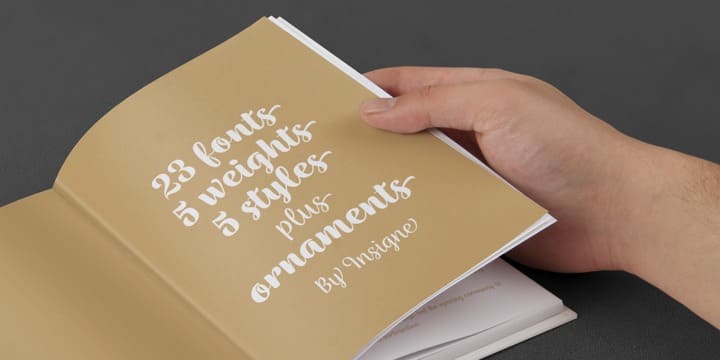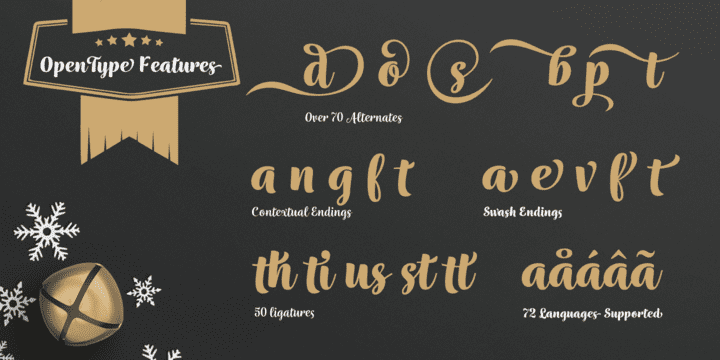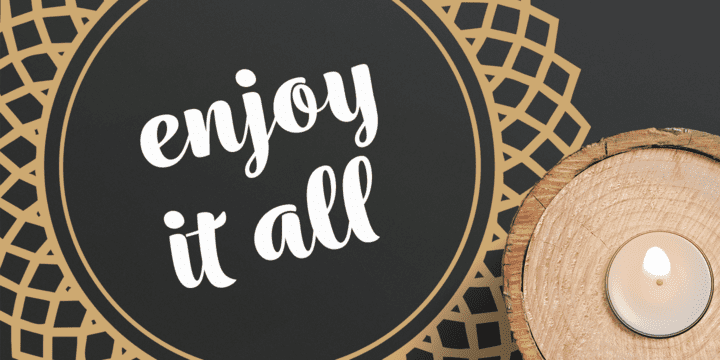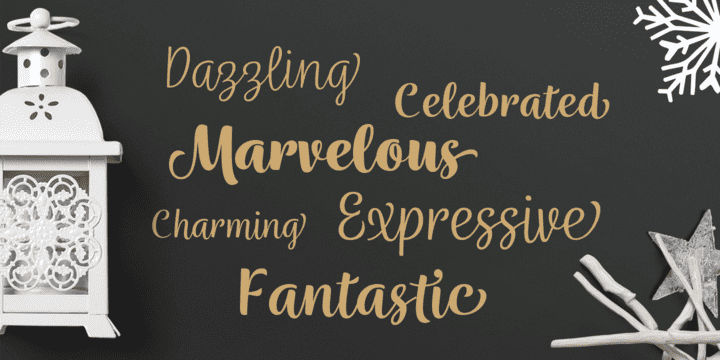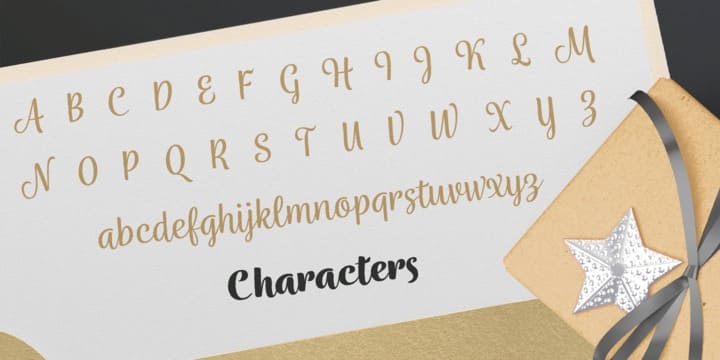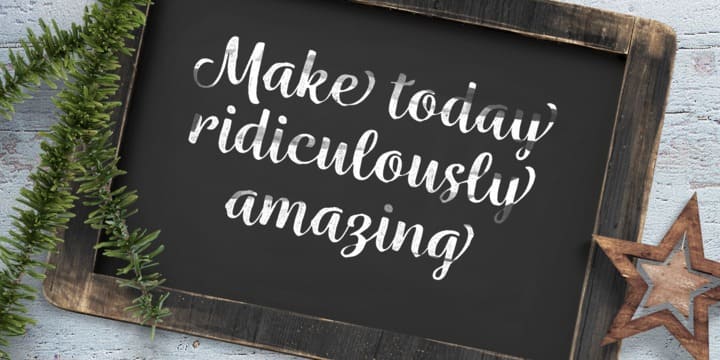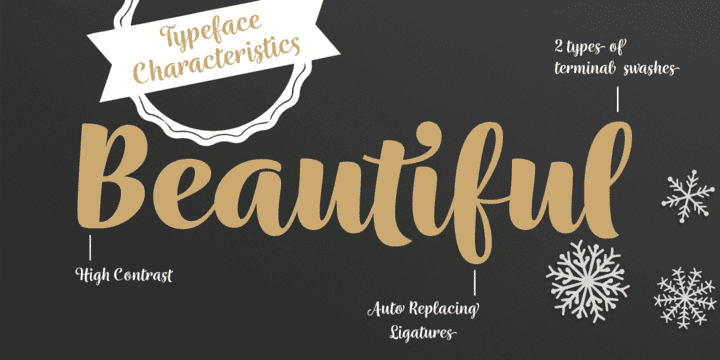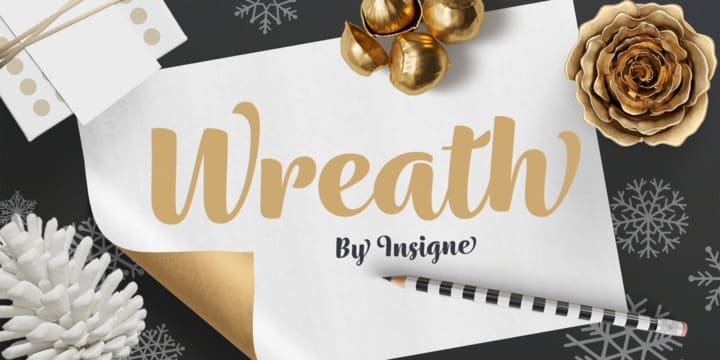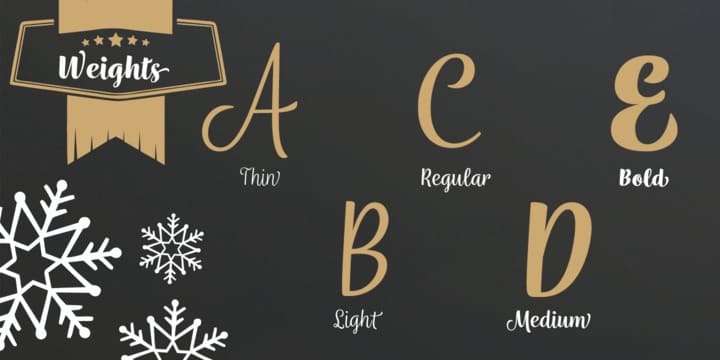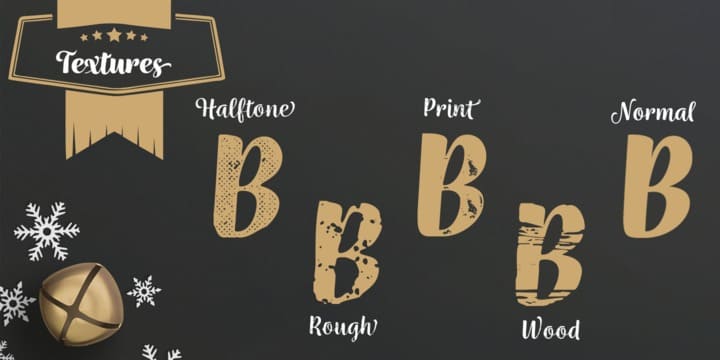
Wreath Family (21 fonts)
From Insigne
With five different weights and five different variants that allow for a distressed appearance, Wreath is no Scrooge. Its numerous alternates help to make your designs happy all the way. They allow for varying the ending characters of the lowercase to give your designs an automatic handwritten appearance. In addition, there are ligatures that extend the handwritten appearance and alternate options, including randomized alternates to create a unique appearance every time the font is used. There are over six-hundred fifty glyphs in every font.